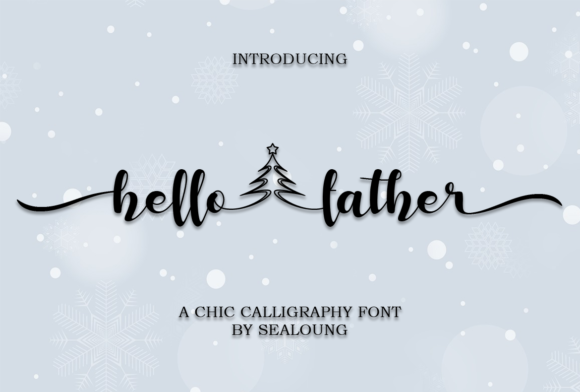
Hello Father Font
Journey into the realm of captivating storytelling with Hello Father Font, a script font family designed to evoke the charm of classic calligraphy. Feel the magic and elegance effortlessly infuse your designs with a touch of timeless beauty.
Unleash your creativity and let the smooth lines and stunning alternates of Hello Father Font guide you towards mesmerizing designs. Each letter dances across the page, telling a tale of elegance and sophistication.
With a varying baseline and gorgeous glyphs, Hello Father Font offers endless possibilities for creating visually striking designs that capture the imagination. Express your unique style and leave a lasting impression on your audience with this enchanting font family.
Dive into the world of Hello Father Font and discover the boundless opportunities it holds. Let your designs flourish with the eloquence of calligraphy and the allure of modern typography. Seize this chance to transform your creative visions into stunning realities.